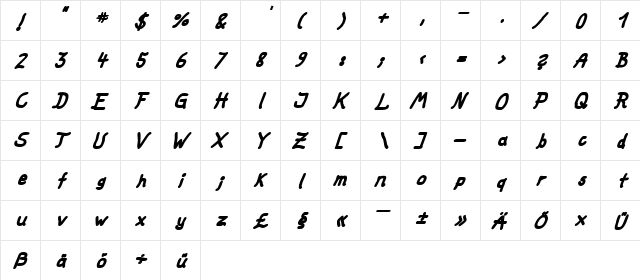
fat marker Italic Font Preview
fat marker Italic
Design Context for fat marker Typeface
fat marker is a composed and adaptable typeface that performs quietly and consistently across a wide range of design contexts. The slanted form adds forward momentum and visual energy.